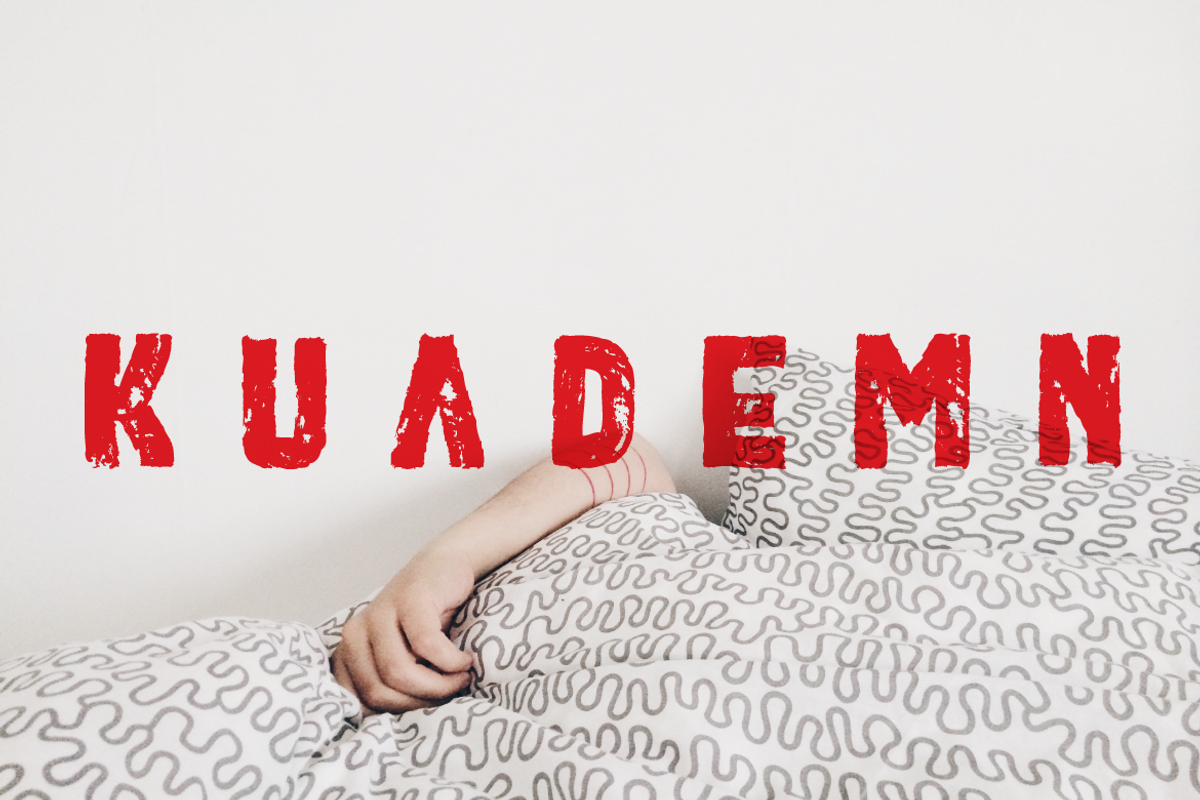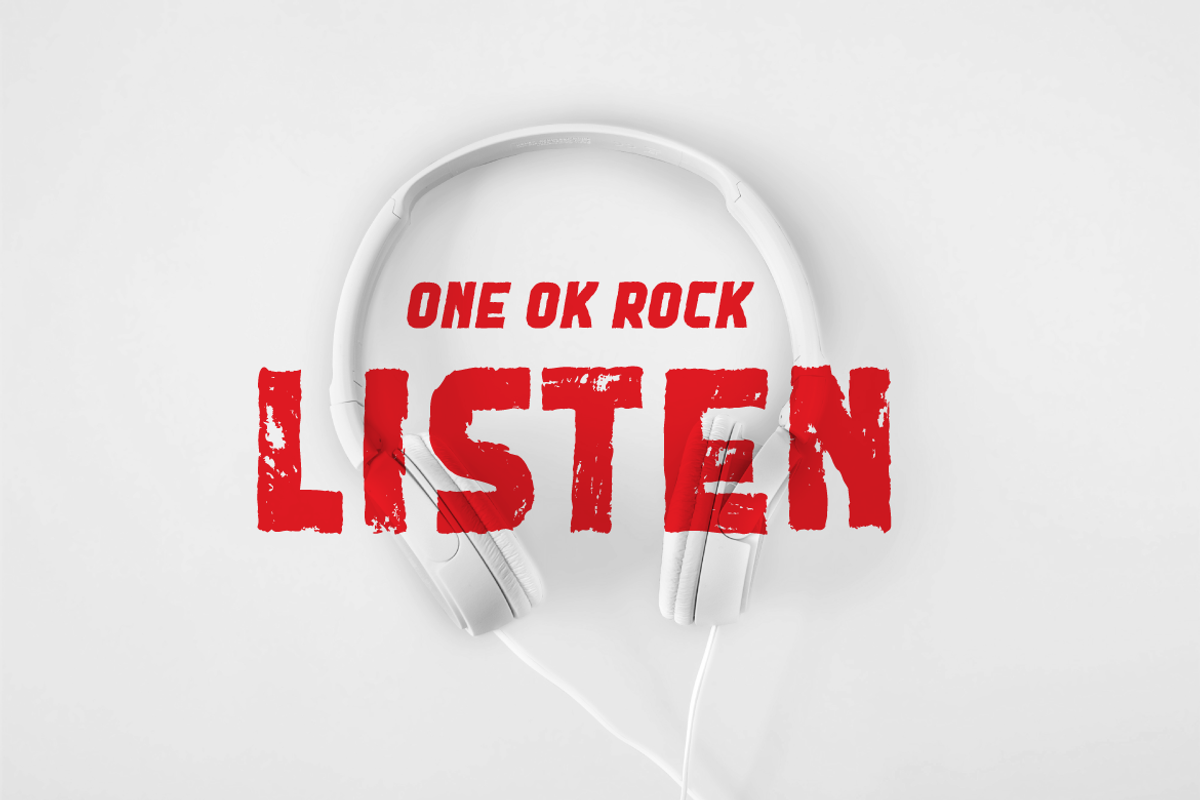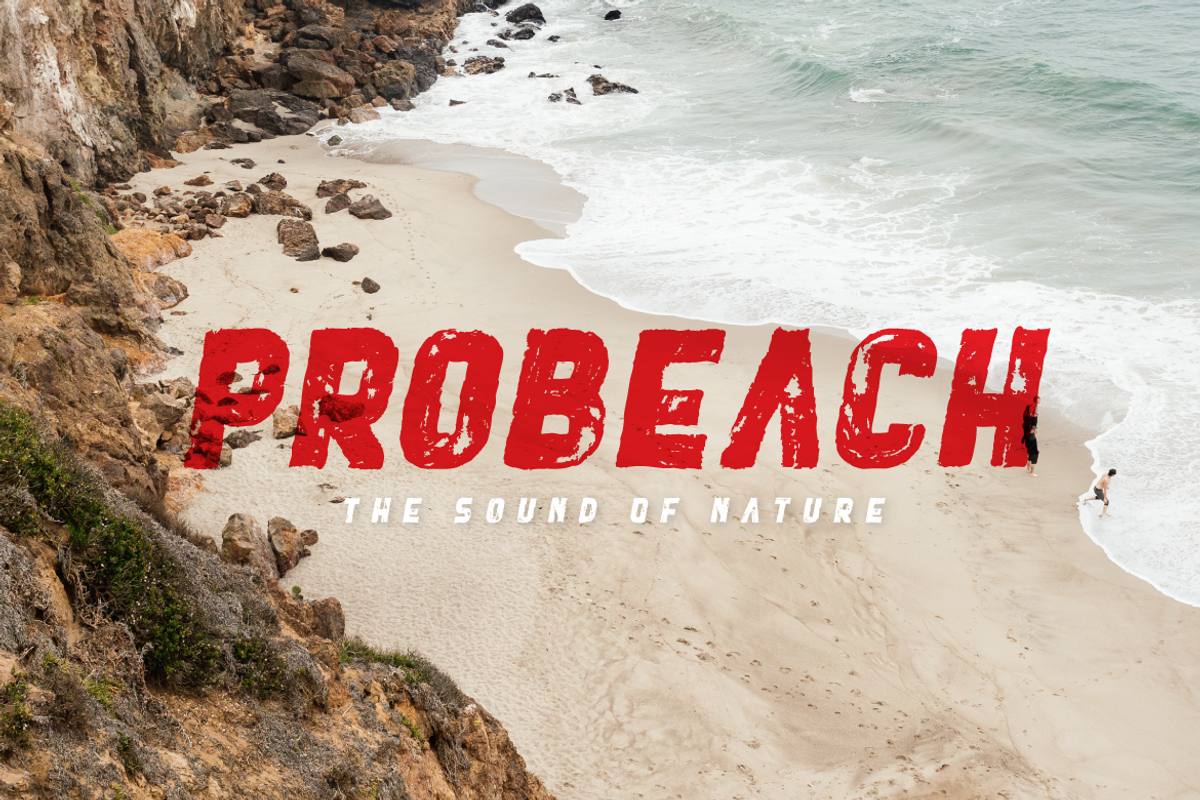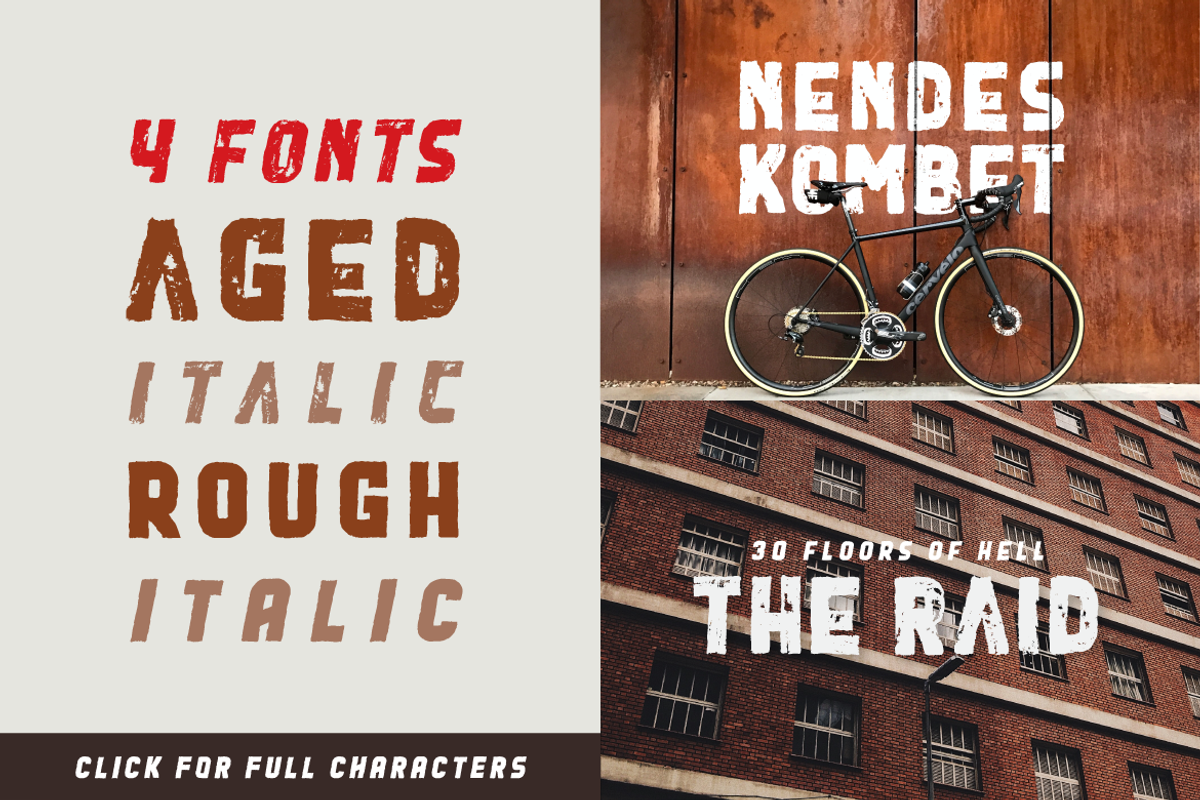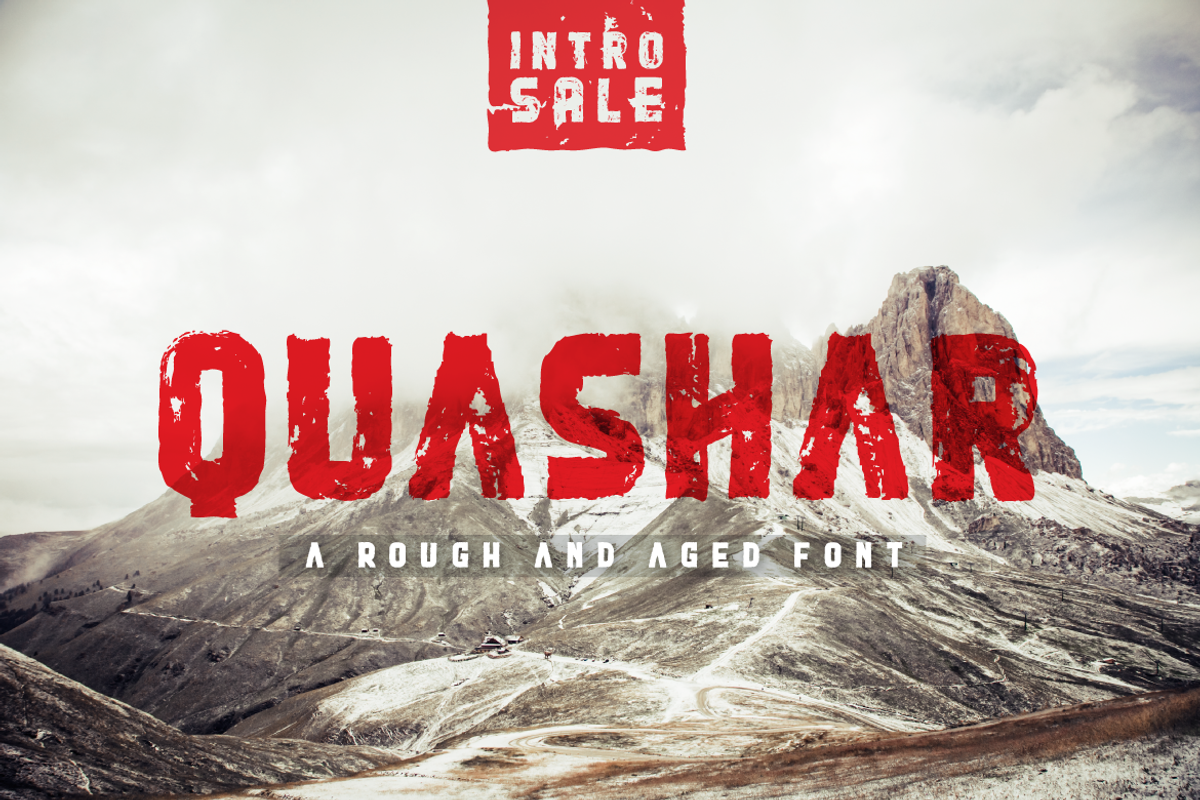
Quashar
Quashar a new rough and aged / stamp fonts. It is suitable for any design needs. Quashar comes with 2 set of upper case (allcaps), punctuation, and numerals. Includes a range of multilingual support. Please message me if you're unsure of any language support.